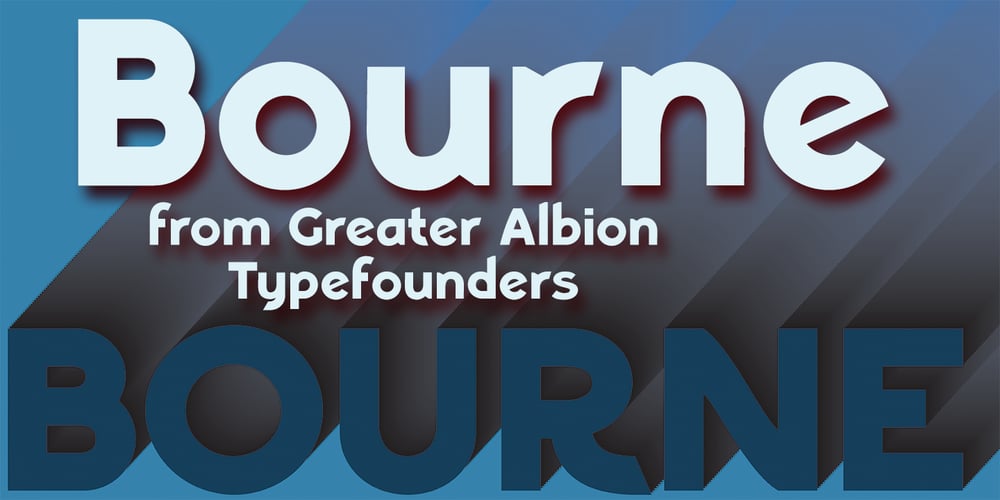
Bourne
Bourne font
Bourne Font Family was designed by Paul James Lloyd and published by Greater Albion Typefounders. Bourne contains 21 styles and family package options. Bourne is a comprehensive text and display sans-serif family consisting of 21 typefaces, all with a range of features including stylistic alternates, discretionary ligatures, as well as old-style and tabular numeral forms and fractions. The 21 typefaces include two widths and three weights of type as well as square and round terminal forms and oblique faces. Three specialised display faces are also included. The face is ideal for establishing a consistent ‘look’ across a range of projects and could readily become the basis of an organisation’s house publication style. Bourne works well in poster and large scale design work, as well as for the setting of large amounts of text. Individual faces are priced economically and substantial discounts are offered for packs of multiple typefaces.